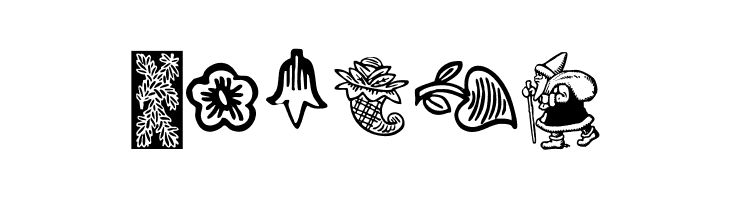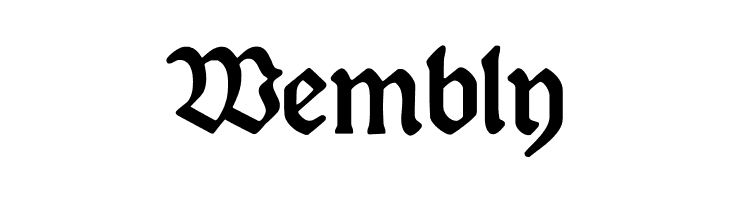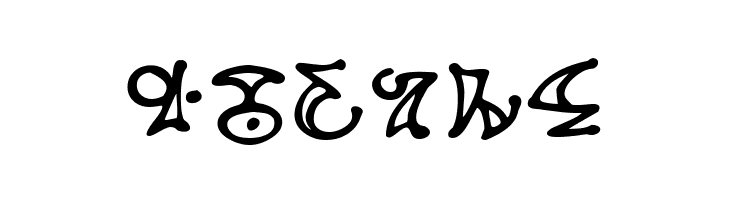
A mystical, rune-like decorative font with intricate curves and bold strokes.
( Fonts by Prioritype Co )
A playful, hand-drawn outline font with a whimsical and dynamic style.
( Fonts by Prioritype Co )
A bold, expressive handwritten font with an artistic and playful style.
( Fonts by Christopher Hansen )
A bold, playful font with irregular, jagged characters and a hand-drawn feel.
( Fonts by Christopher Hansen )
A whimsical, decorative font with intricate, vine-like embellishments.
( Fonts by James Bartram )
Geometric Art Deco-inspired design with bold black and white shapes.
A bold, wide, and playful font with rounded forms and a modern style.
A decorative and abstract font with geometric and artistic elements.
A bold, graffiti-inspired font with sharp, angular edges and a 3D effect.
A playful collection of devilish character illustrations in a cartoonish style.
A graceful script font with elegant, flowing cursive characters and high contrast strokes.
A playful, handwritten script font with bold, curvaceous letters.
A classic, calligraphy-inspired font with Gothic influences and sharp serifs.
An ornate, decorative font with intricate designs and a vintage feel.
( Fonts by Sentinel Type - James Arboghast )
A bold slab serif font with a vintage Western style.
( Fonts by Sentinel Type - James Arboghast )
A bold, decorative slab serif font with strong, impactful characters.
( Fonts by Sentinel Type - James Arboghast )
A bold slab serif font with a vintage yet modern appeal.
( Fonts by www.vicfieger.com )
A bold, distressed font with an edgy, chaotic style.
Ornamental dingbat font with floral, bird, and decorative motifs.
( Fonts by Marian Steinbach http://www.sendung.de/dinschablonierschrift/ )
A bold, geometric stencil font with industrial appeal.
A bold, playful font with dinosaur silhouettes integrated into each character.
A bold, stencil-style font with a cracked texture for an industrial, rugged look.
A bold, rugged font with a distressed, hand-crafted appearance.
( Fonts by Devin Rosado )
A bold, jagged font with a graffiti-inspired style.
A playful, circular font with geometric shapes and consistent line weight.
A playful, circular font with thin white lines on bold black backgrounds.
A playful, hand-drawn font with characters enclosed in circles, perfect for fun and creative projects.
A playful, circular font with modern, artistic character designs.
A decorative font with abstract, whimsical face designs in circular shapes.